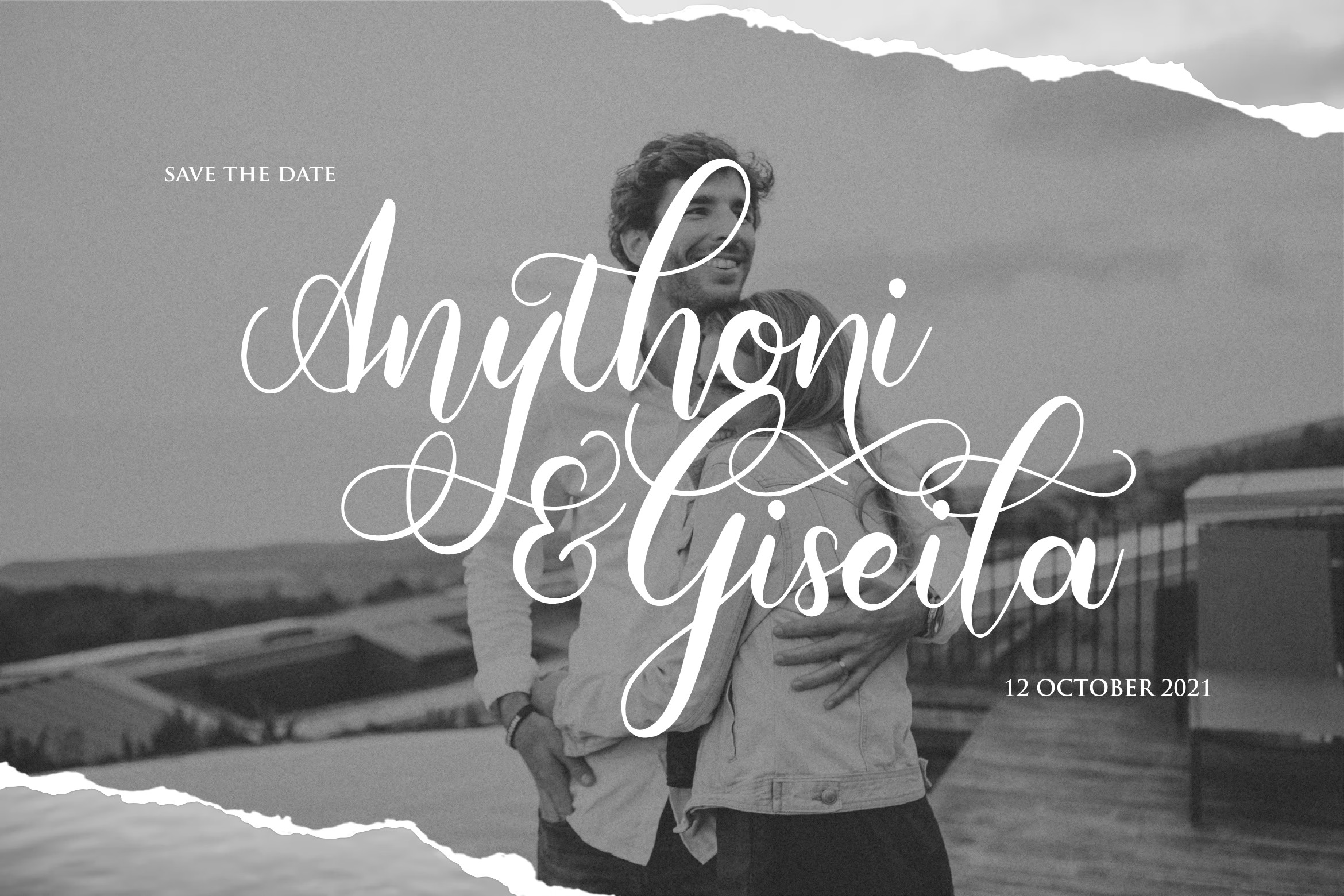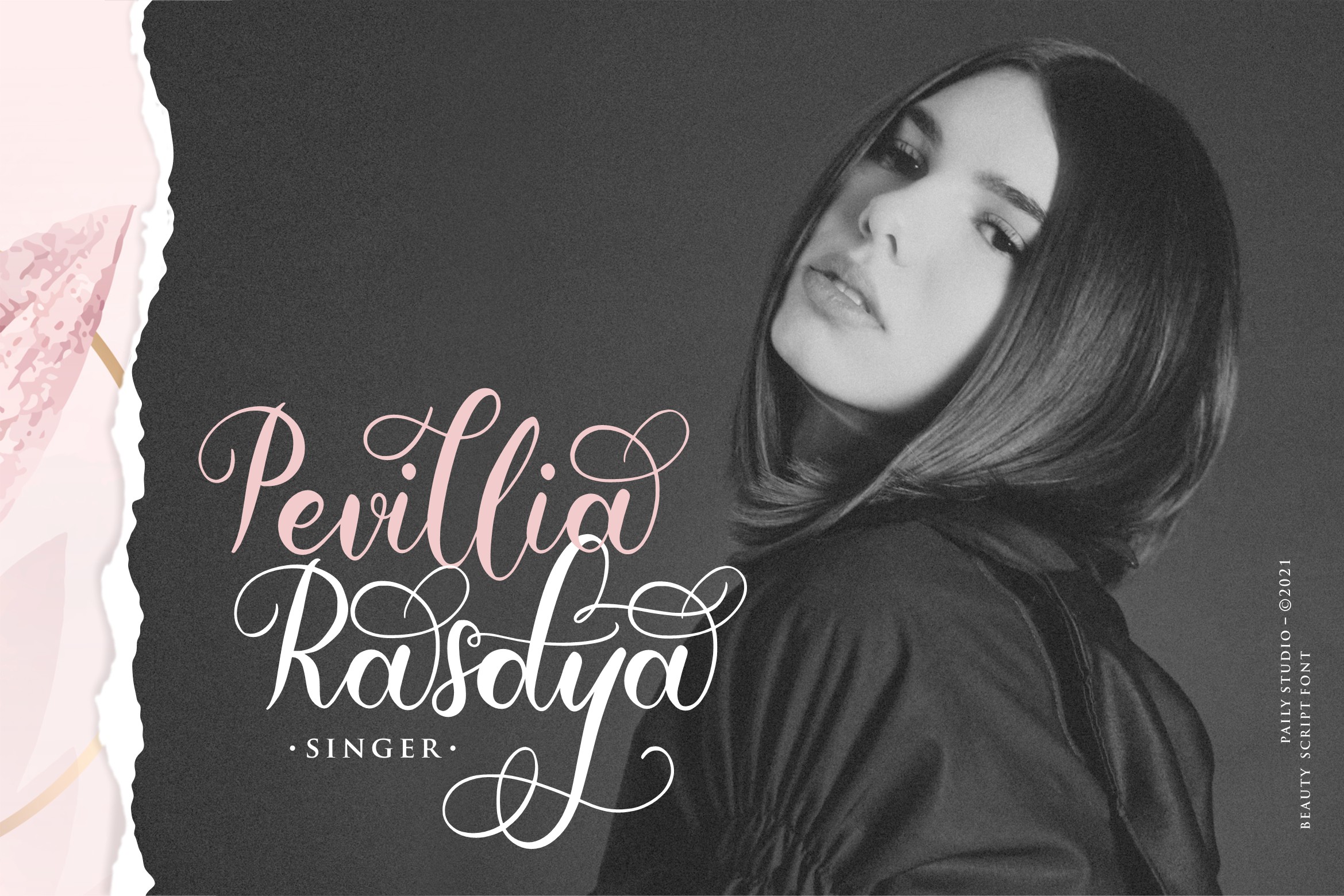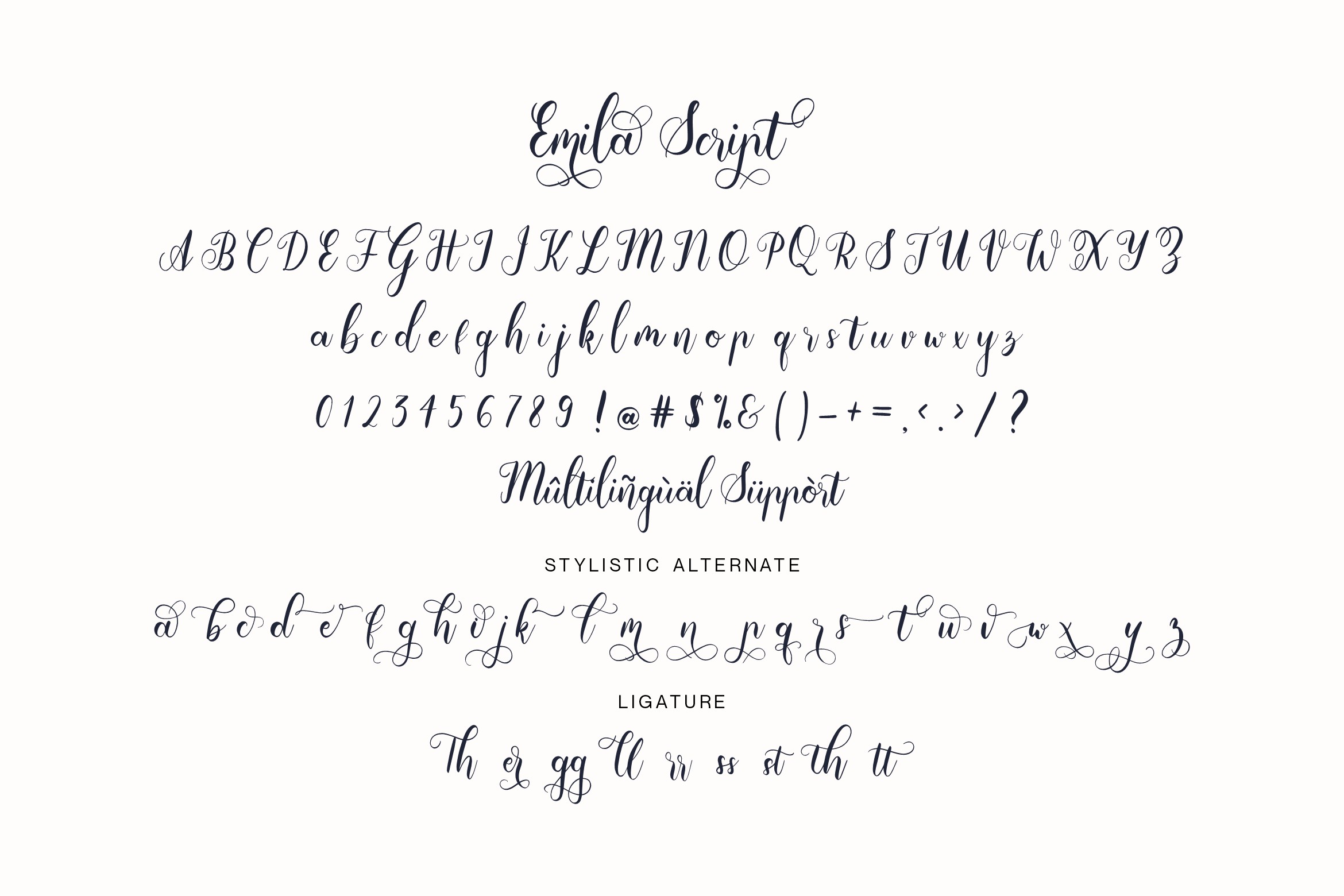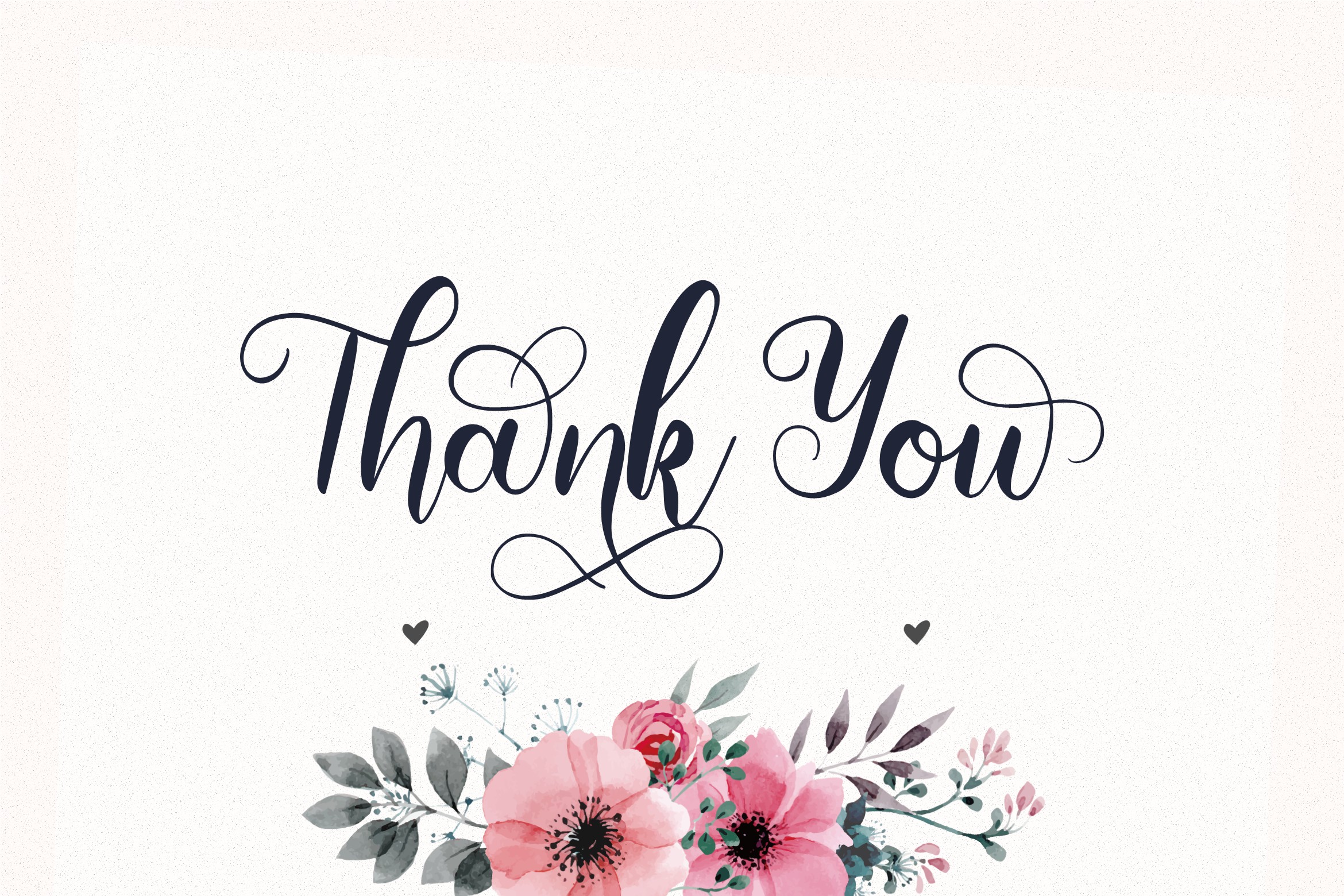
Emila Font
Emila Script Font
This is a beautiful script font. You can use this gorgeous font for a wide range of applications, such as wedding design, branding projects, logos, posters, name cards, invitations, social media posts, and others.